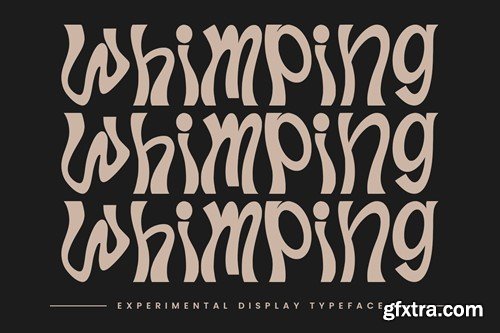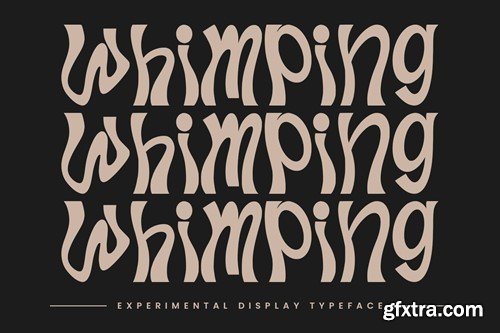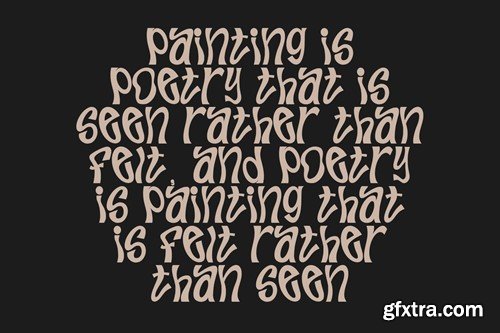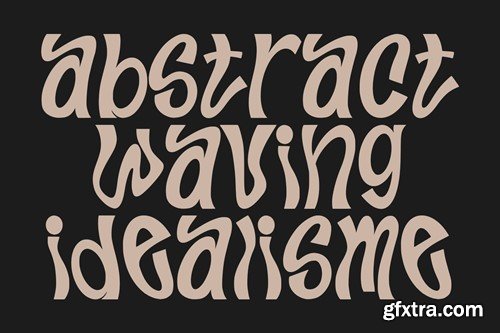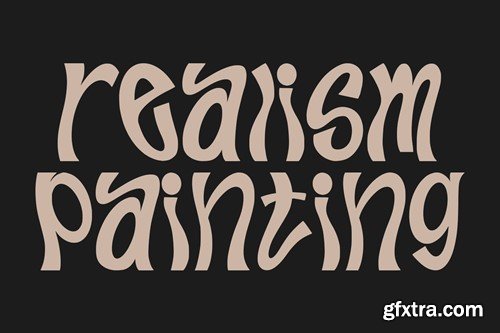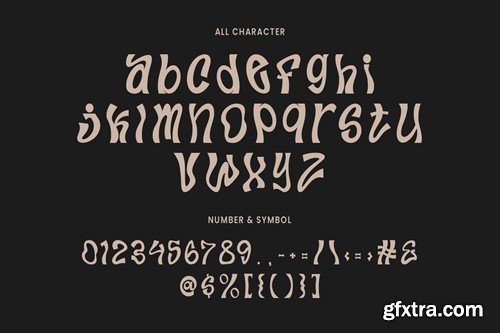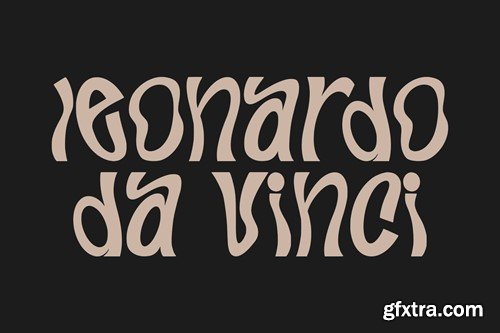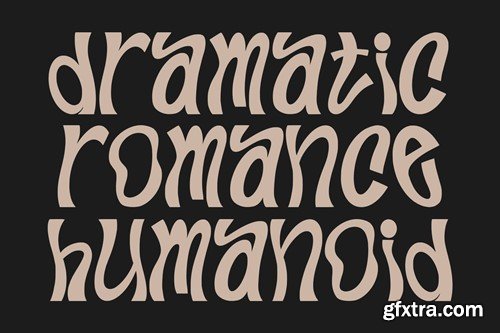
弱化实验性显示字体 GTVBWKB
Whimping Experimental Display Typeface
Whimping experimental display typeface. Bold stroke, fun character with a bit of ligatures and alternates. To give you an extra creative work. Whimping experimental display typeface support multilingual more than 100+ language. This font is good for logo design, Social media, Movie Titles, Books Titles, a short text even a long text letter and good for your secondary text font with script or serif. Make a stunning work with Whimping experimental display typeface. What you get: Cheers, Maulana Creative